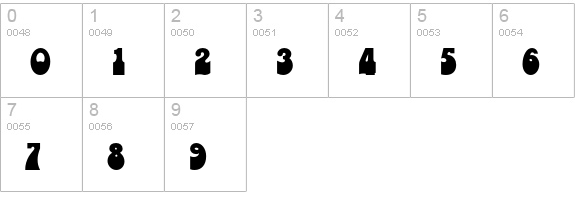
Bottleneck Std Font Details
Bottleneck Std font is a versatile and modern typeface that exudes sophistication and elegance. With its clean lines and distinctive, bold letterforms, this font is perfect for a wide range of design projects, from branding and advertising to packaging and web design. The best part? Bottleneck Std font is available for free download at FontsMarket.com, making it accessible to designers and creatives of all levels. Whether you're working on a professional project or a personal endeavor, this font is sure to elevate your designs and make a lasting impression. Don't miss out on the opportunity to add Bottleneck Std font to your font library - download it for free today and start creating stunning visuals that stand out from the crowd.